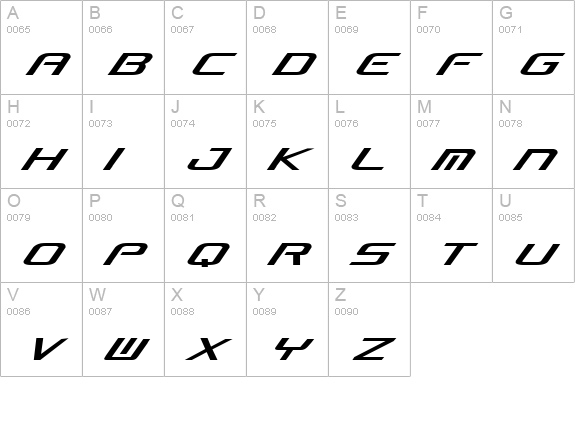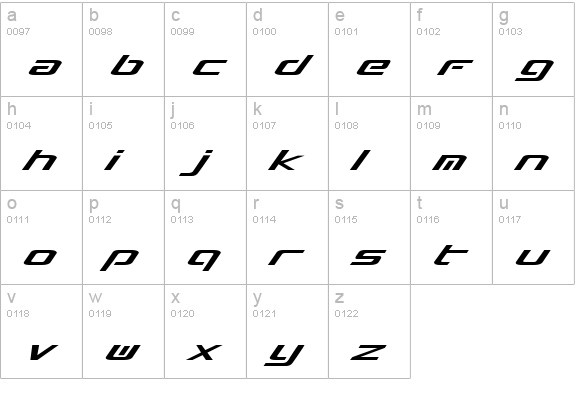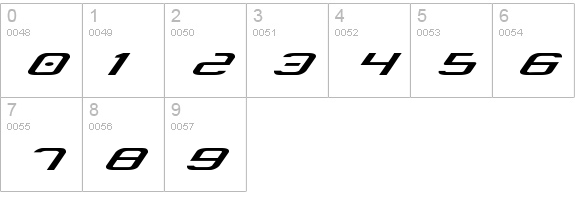
Concielian Break font is a unique and modern typeface that combines elegance with a touch of playfulness. Its sleek lines and sophisticated curves make it perfect for a wide range of design projects, from branding to packaging to invitations. This versatile font is sure to elevate any project and give it a fresh and contemporary look. And the best part? Concielian Break font is completely free to download at FontsMarket.com! So whether you're a designer looking to add a new font to your collection or a business owner in need of a stylish typeface for your brand, you can easily access this beautiful font without breaking the bank. Don't miss out on the opportunity to enhance your designs with the stunning Concielian Break font – download it today and start creating!